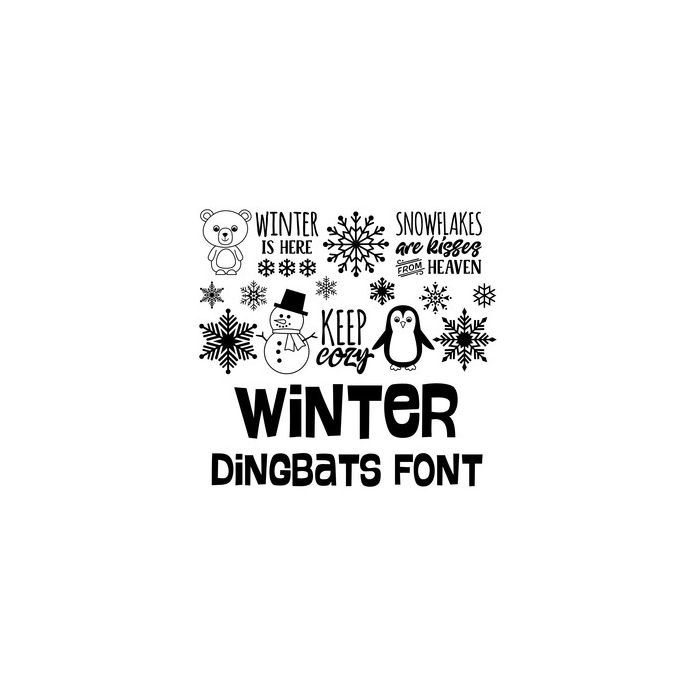
This cute dingbat font includes 26 winter & snowflake icons and phrases that you can type + cut. Make adorable projects quickly and easily with this fun font. For ideas and inspiration visit www.loriwhitlock.com and www.facebook.com/lori.whitlock.studio. For Lori's video tutorials visit www.youtube.com/loriwhitlock. For a full tutorials list visit www.loriwhitlock.com/blog/tutorials.